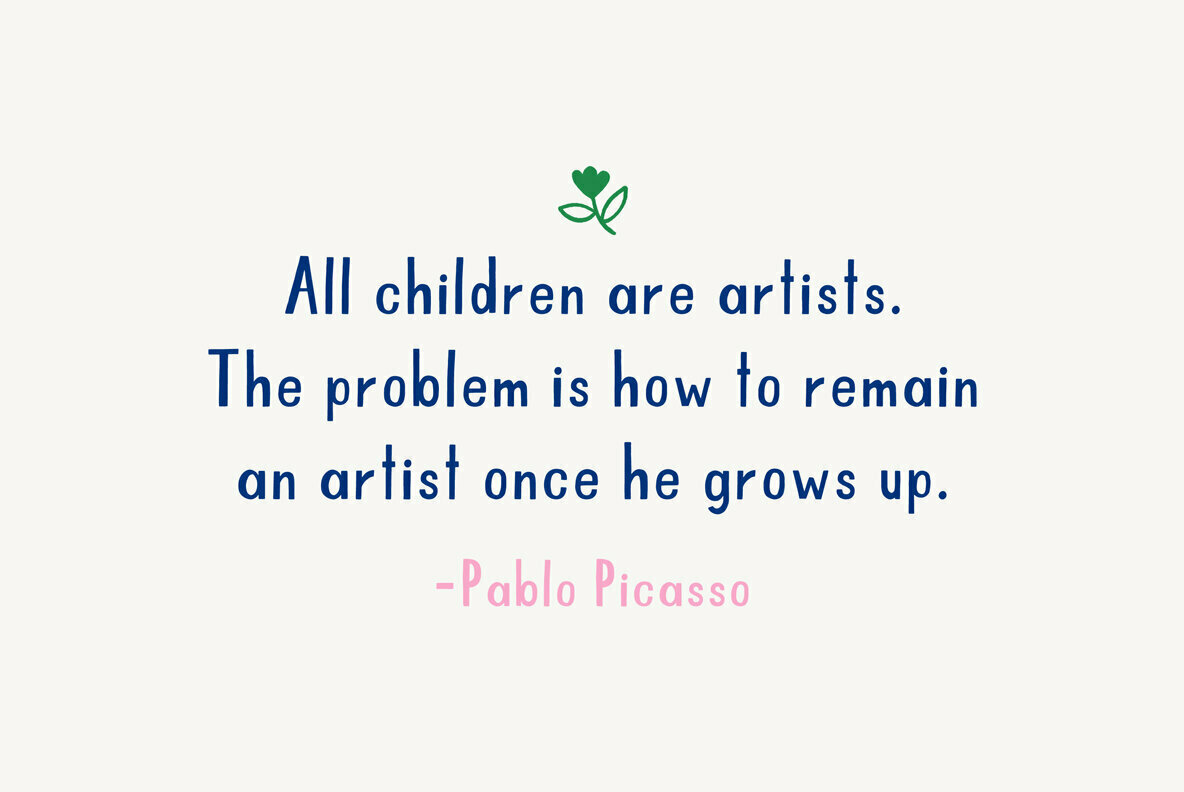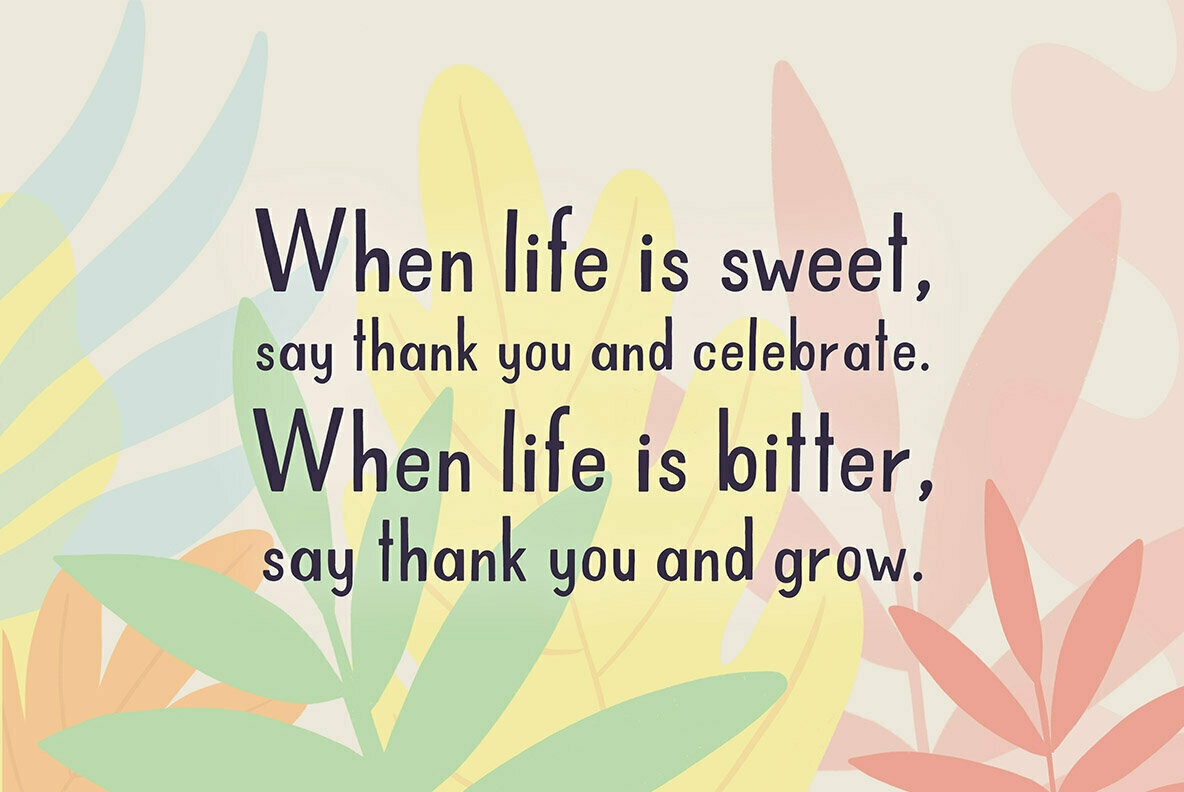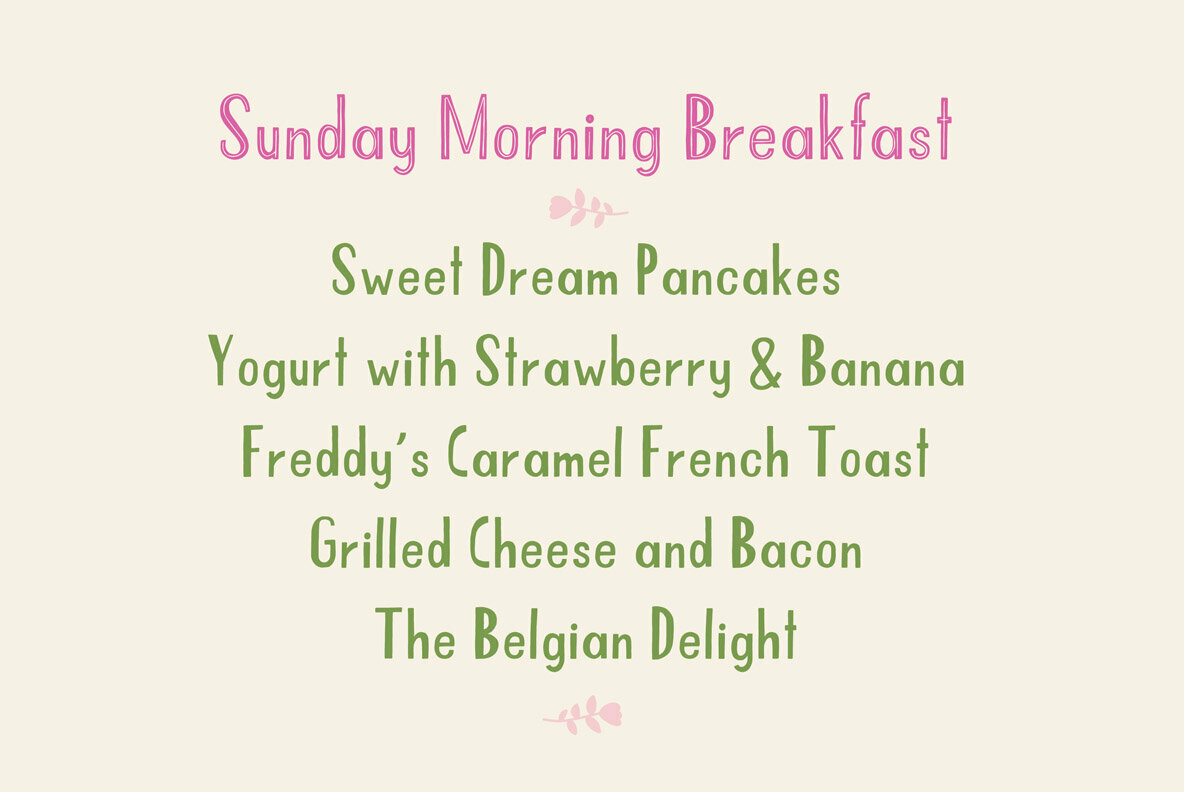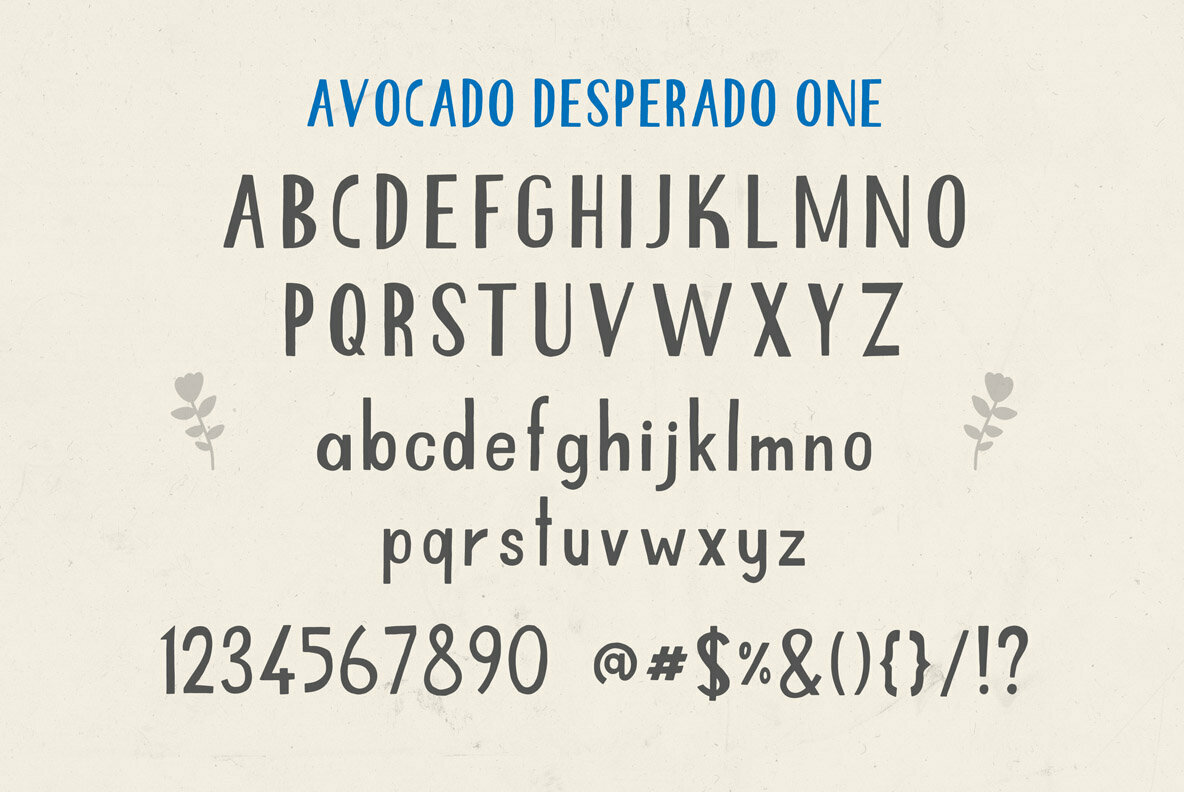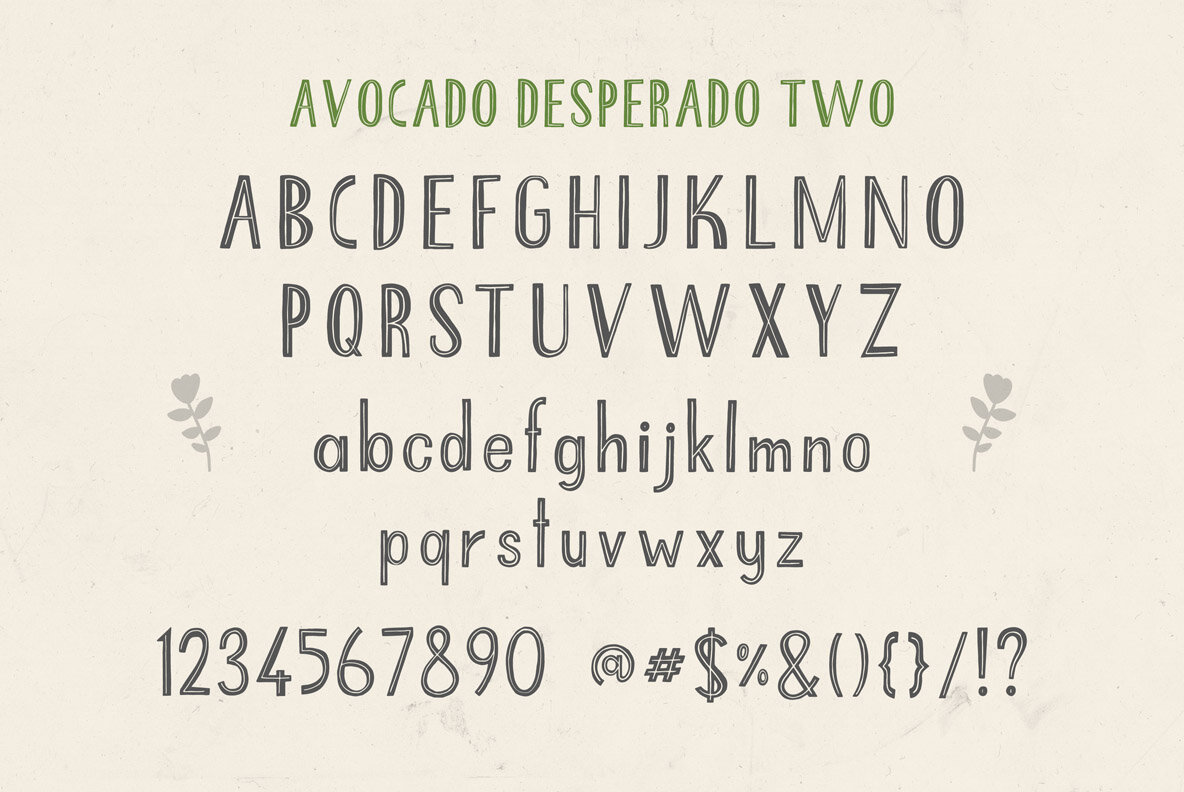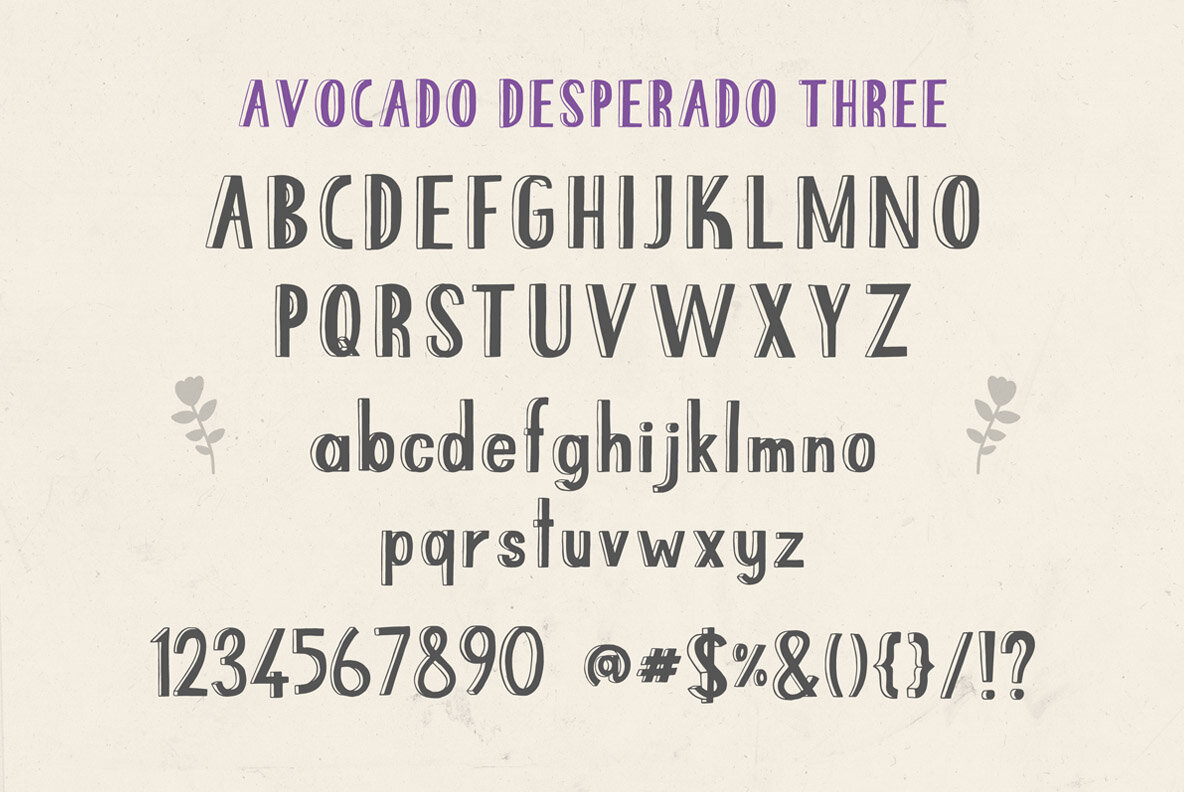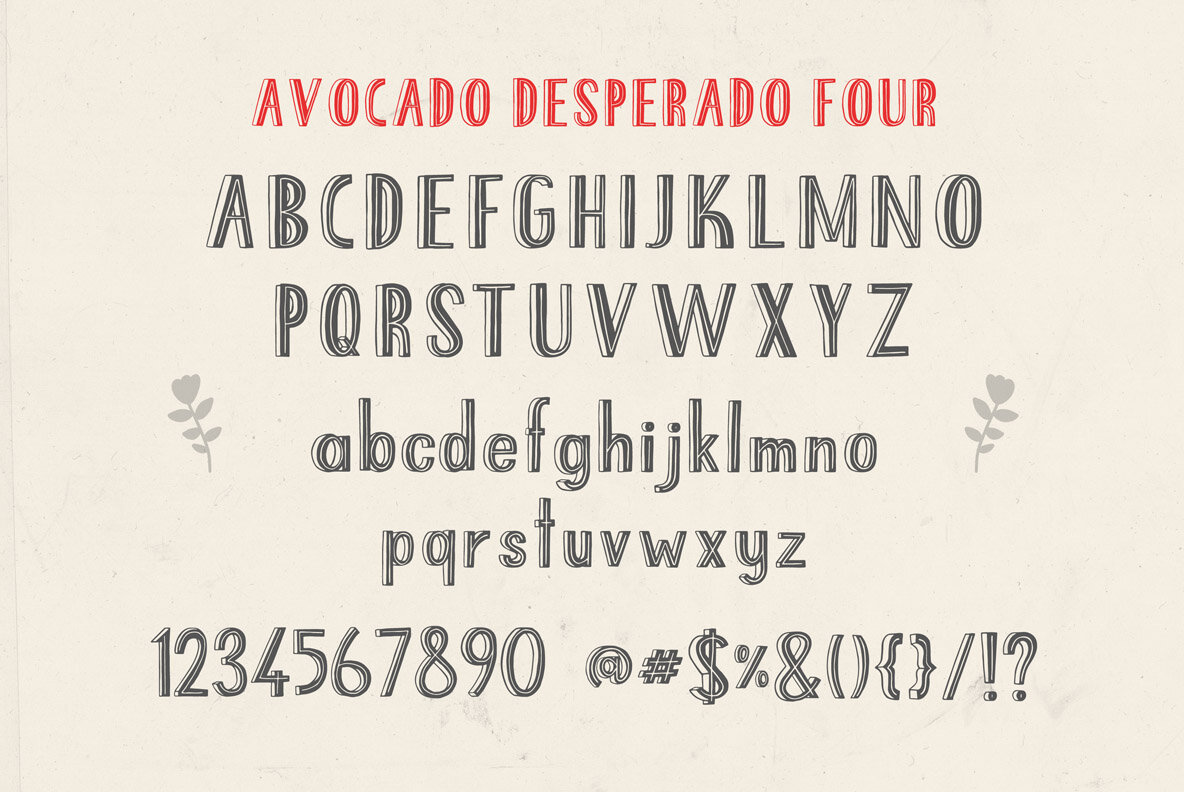
Avocado Desperado Font
Avocado Desperado font set includes 4 fonts. This set would be perfect for desert and food menus, bakery branding, children books, apparel and so much more.